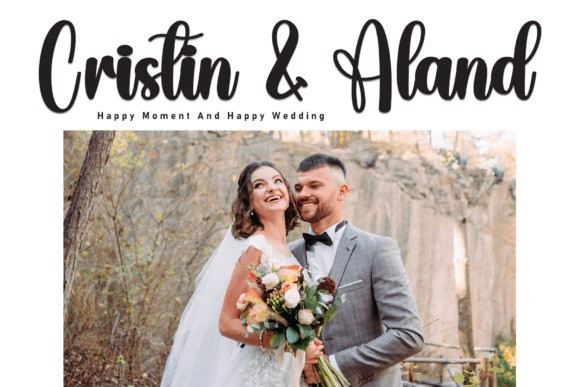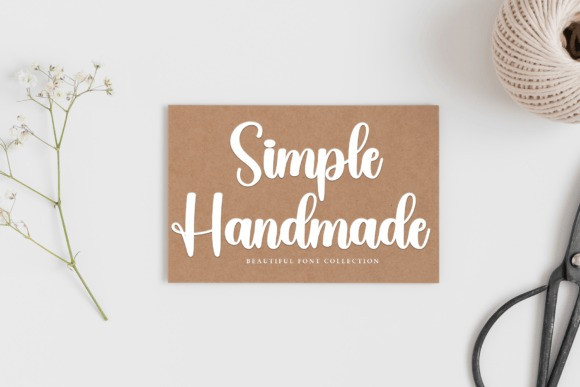
Elegantly Script Font
Elegantly Script Font is a sweet and friendly handwritten font. Its natural and unique style makes it incredibly fitting to a large pool of designs. The only limit is your imagination!